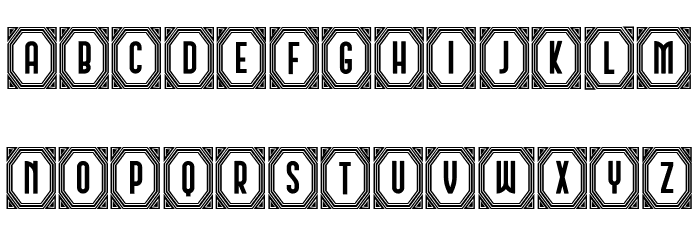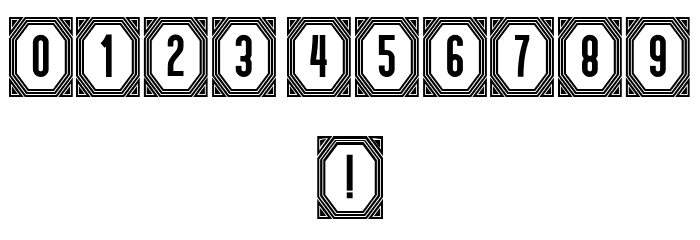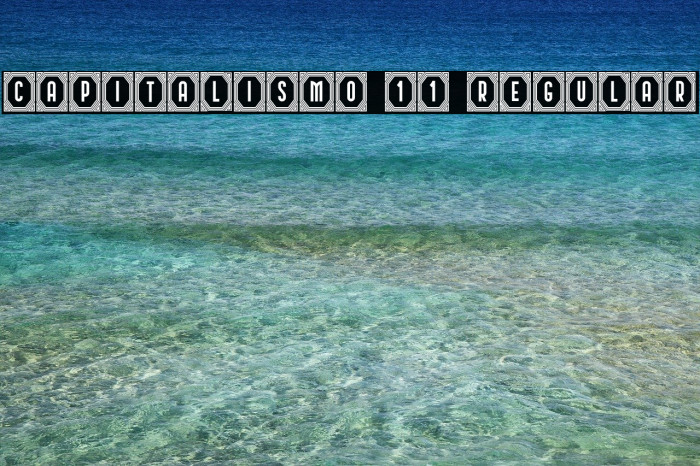
Capitalismo 11 Regular Font
This font features a bold, geometric design with each character enclosed in a decorative, octagonal frame. The letters and numbers are centered within these frames, creating a striking visual impact. The style is reminiscent of Art Deco, with clean lines and symmetrical patterns that give it a sophisticated and vintage feel. The uppercase and lowercase letters share the same design, maintaining consistency across the alphabet. The numbers and special characters are also designed in the same manner, ensuring uniformity throughout the font. This font's unique framing and bold characters make it ideal for projects that require a strong visual presence.
A bold, geometric font with Art Deco-inspired octagonal frames around each character.
- Font: Capitalismo 11 Regular
- Proposed Projects: Ideal for vintage-themed posters, branding, packaging, and decorative signage.
- Overall Style: Vintage